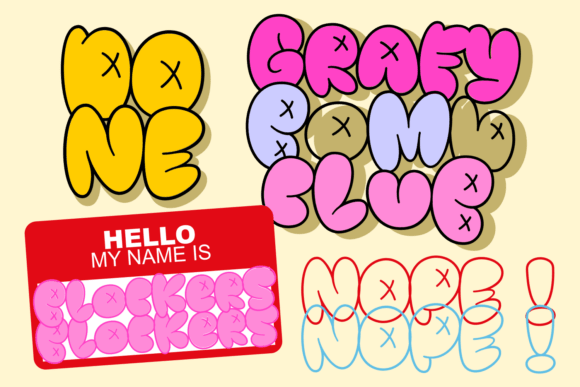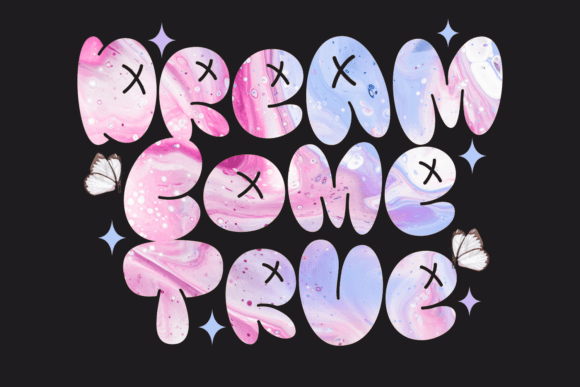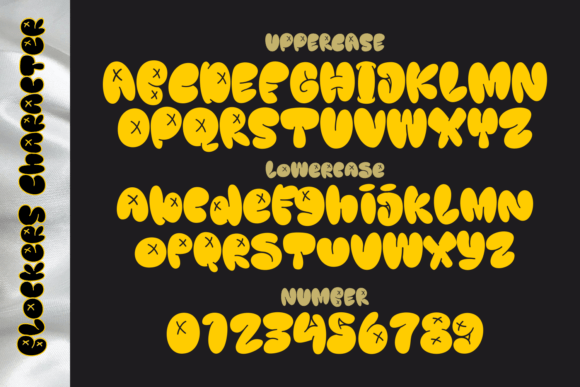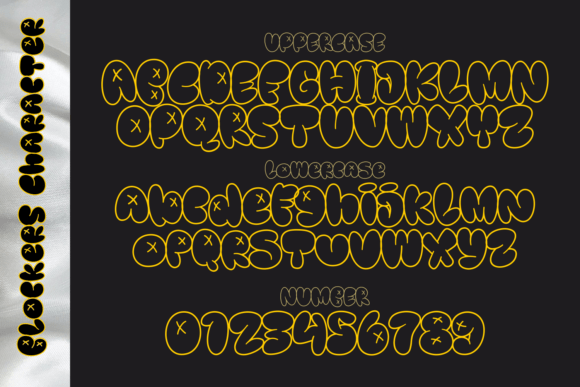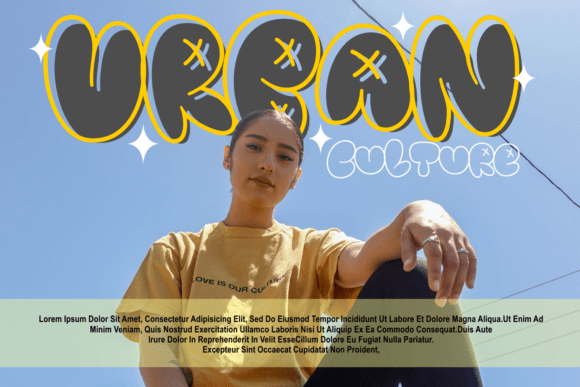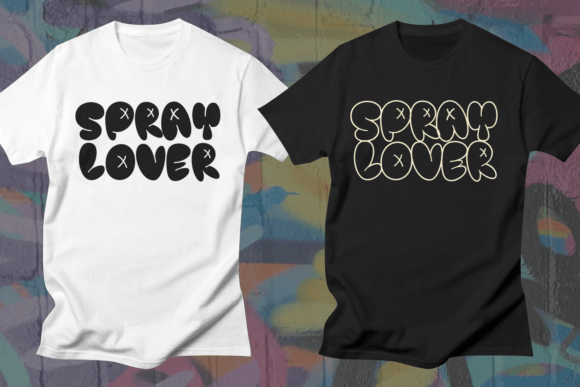
Unleash the Energetic Allure of Blockers Font: Elevate Your Designs with Graffiti-Inspired Charm
Are you ready to inject a dose of vibrant energy into your design projects? Look no further than Blockers Font, a captivating typeface that embodies the spirited essence of graffiti art. With its distinctive CTE style and bubbly character, Blockers is poised to become your go-to font for creating visually stunning artistic pieces that leave a lasting impression.
The Birth of Blockers: A Graffiti-Inspired Masterpiece
Blockers Font is deeply rooted in the dynamic world of graffiti art, where creativity knows no bounds and self-expression reigns supreme. This typeface skillfully captures the exuberance and playfulness of graffiti, merging it with a timeless, regular style that ensures versatility and broad appeal. The result is a font that is not only visually striking but also remarkably adaptable, suitable for a wide range of design applications.
Unleashing Creative Potential with Blockers
Blockers Font is more than just a collection of letters; it’s a creative catalyst designed to elevate your artistic endeavors to new heights. Its standout CTE style and vigorous line art come together to create a compelling charm that infuses your designs with an unparalleled level of aesthetic brilliance. Whether you’re working on a logo, poster, or digital artwork, Blockers provides the perfect blend of style and substance to make your project shine.
Key Features of Blockers Font
- Graffiti-Inspired Design: Blockers boasts a unique, graffiti-inspired aesthetic that adds a fresh and dynamic touch to your designs.
- CTE Style: The font’s distinctive CTE style sets it apart, offering a bold and eye-catching appearance that’s sure to grab attention.
- Versatility: With its regular style and vigorous line art, Blockers is incredibly versatile, making it suitable for a wide range of design projects.
- Easy to Read: Despite its bold and artistic nature, Blockers remains easy to read, ensuring that your message is communicated clearly and effectively.
Why Choose Blockers Font?
In a world where design trends are constantly evolving, Blockers Font offers a refreshing and timeless solution for creatives looking to make a statement. Here are just a few reasons why Blockers should be your top choice:
- Unique Aesthetic: Blockers provides a distinctive look that will set your designs apart from the crowd.
- Highly Versatile: The font’s adaptability makes it perfect for various design applications, from print to digital media.
- Energizing Appeal: Blockers injects a dose of energy and vibrancy into your designs, ensuring they capture and hold attention.
How to Use Blockers Font in Your Designs
- Pair with Complementary Fonts: Combine Blockers with clean, sans-serif fonts to create visual contrast and enhance readability.
- Experiment with Colors: Take advantage of Blockers’ bold style by experimenting with vibrant colors that match your brand’s personality.
- Play with Sizes: Use varying font sizes to create visual hierarchy and emphasize key messages in your design.
Blockers Font is a game-changer for designers and crafters looking to infuse their projects with a burst of energy and creativity. Its unique graffiti-inspired design, combined with a versatile and easy-to-read style, makes it an invaluable addition to your creative toolkit. Whether you’re aiming to create stunning visual pieces or simply looking to elevate your brand’s aesthetic, Blockers Font is the perfect choice. So why wait? Dive into the energizing allure of Blockers and watch your designs come alive with unparalleled vibrancy and charm.